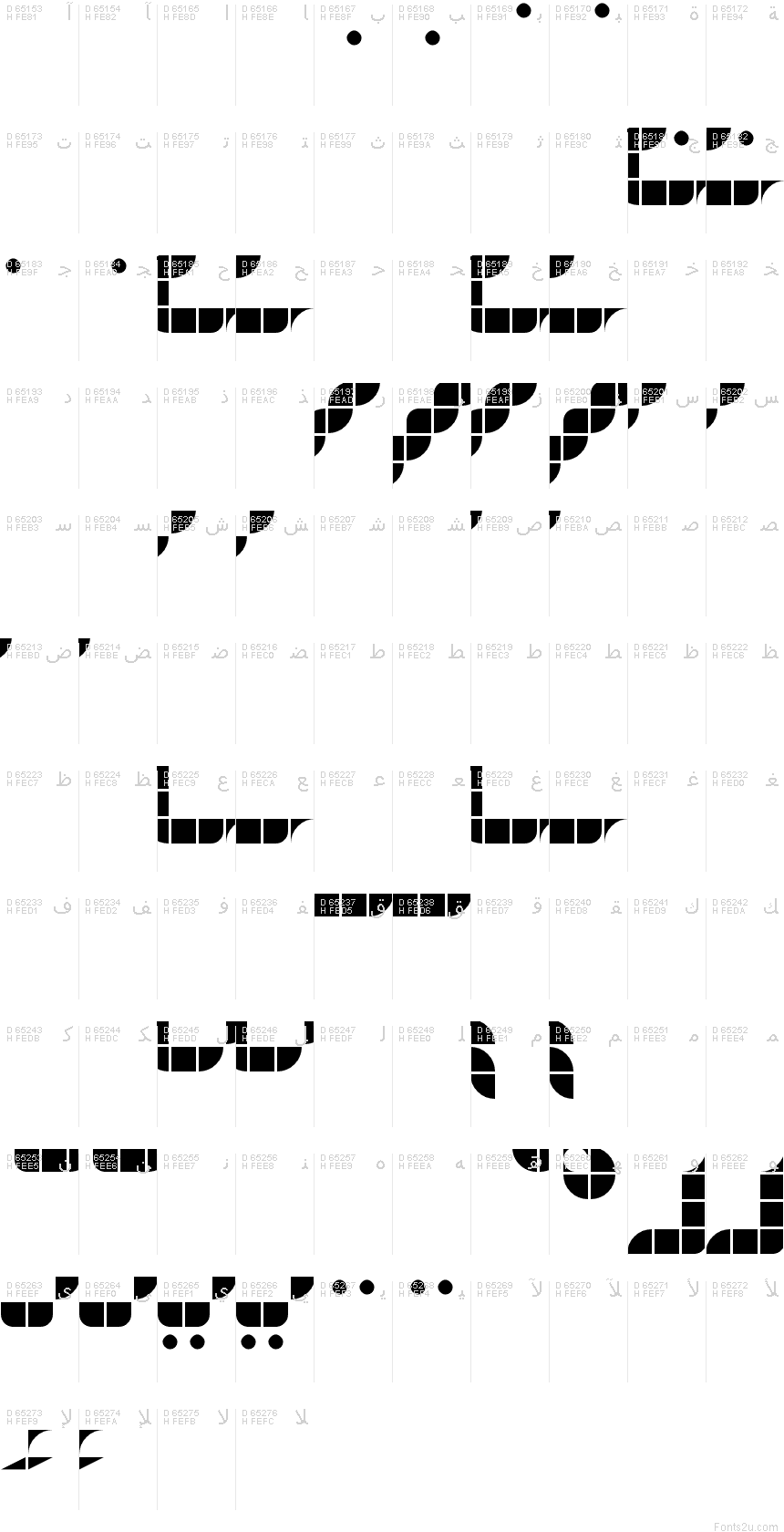
Typo Shaymae, created by esavchay of FSI FontShop International GmbH, is a free sign dingbat font built from compact, solid pictograms. The symbols use blunt edges and simplified silhouettes, giving them the direct look of stamped markers. Their dense forms feel practical rather than ornamental, with squared details that keep the shapes firm and graphic.
Signage is the clearest setting for these marks, especially in maps, event materials, and interface graphics where a simple symbol can identify an action or destination. In editorial design, the same blocky forms can act as section markers or topic icons, extending the publication's graphic system beyond ordinary text.